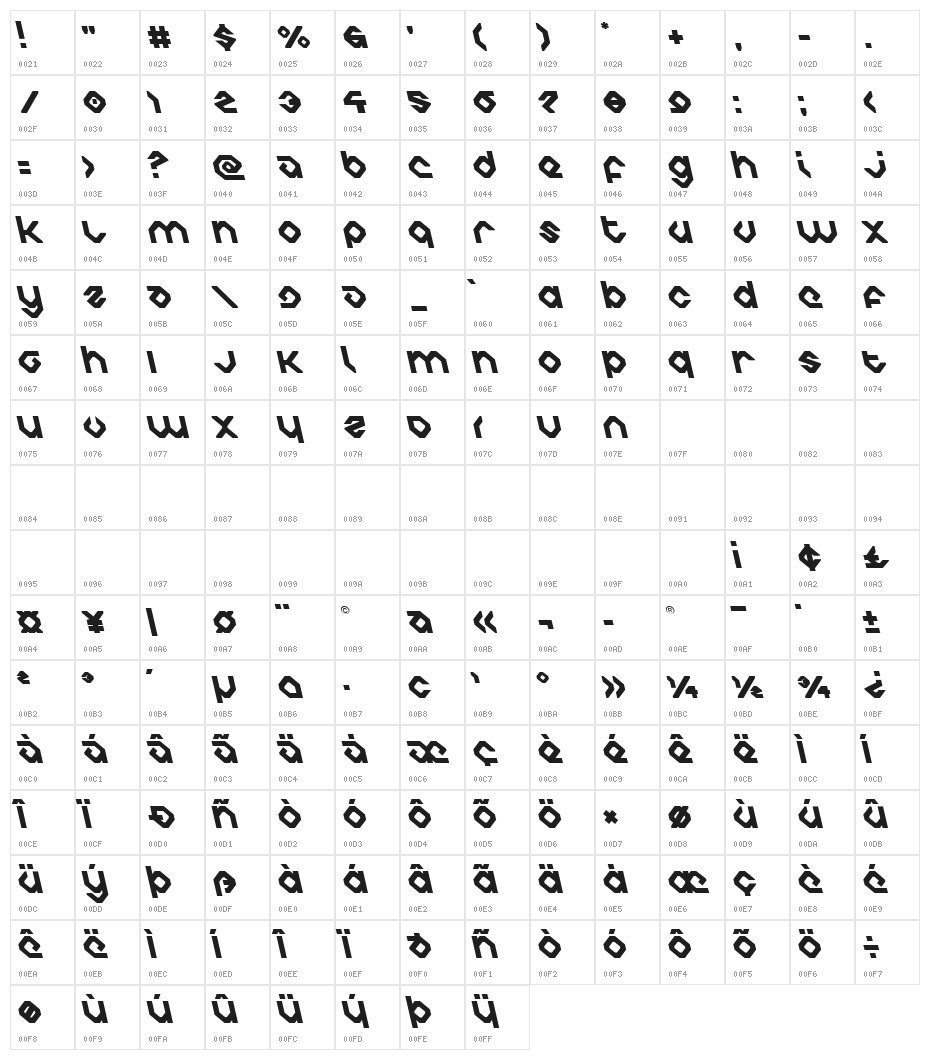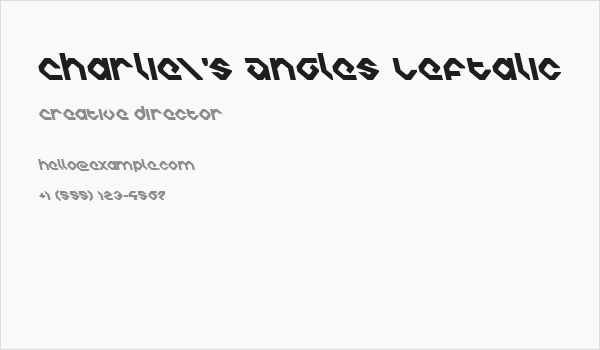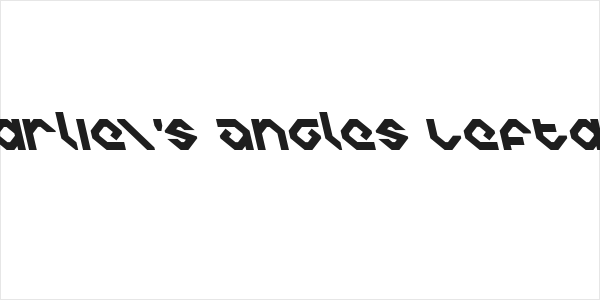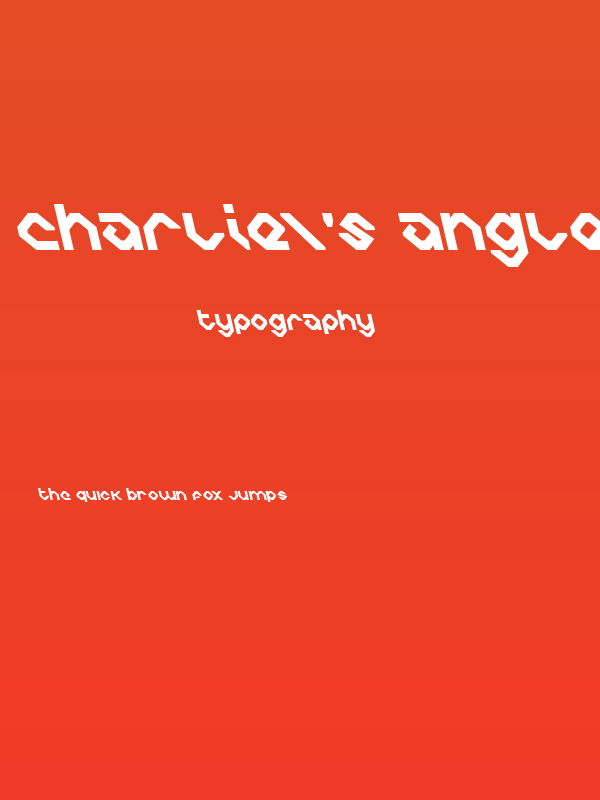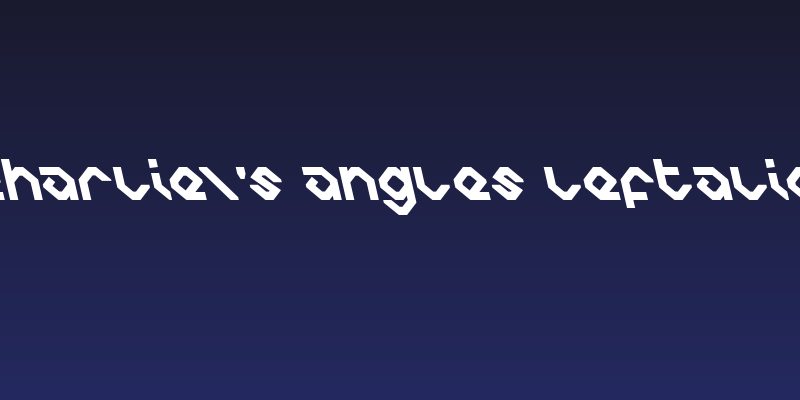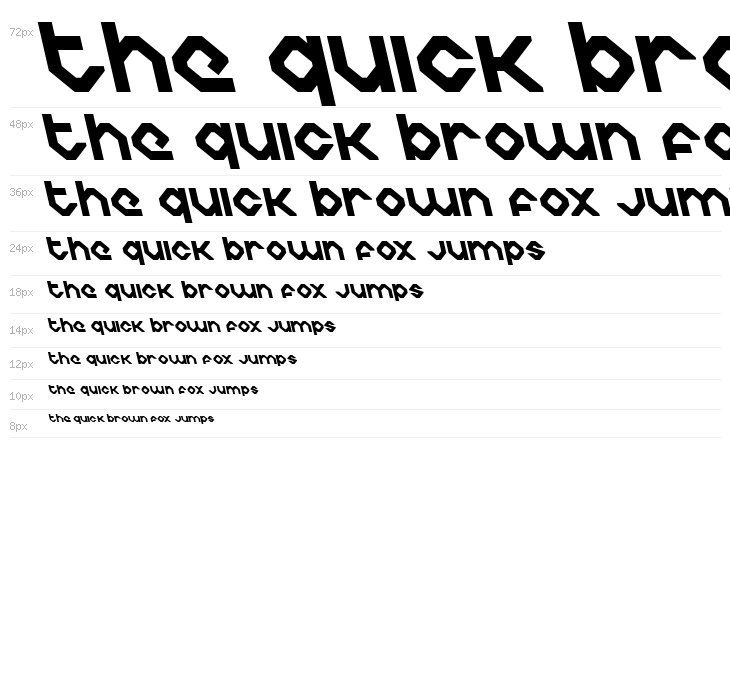
Charlie's Angles Leftalic Font
Charlie's Angles Leftalic Description
This font features a bold, angular design with a distinct geometric style. Each character is crafted with sharp edges and a consistent slant, giving it a dynamic and modern appearance. The uppercase and lowercase letters maintain a uniformity in their angularity, while the numbers and special characters follow the same design principles, ensuring a cohesive look across all glyphs. The font's unique style makes it stand out, with a strong presence that commands attention. Its boldness is complemented by a medium contrast in stroke thickness, adding to its striking visual impact.